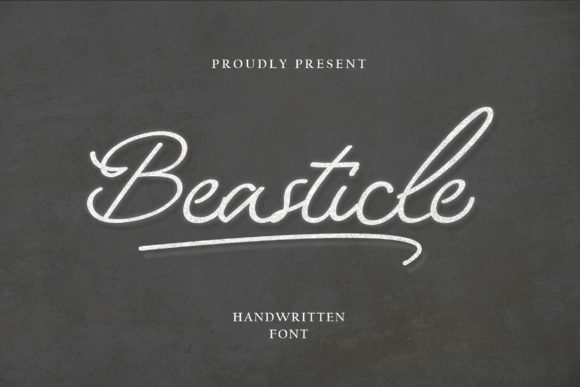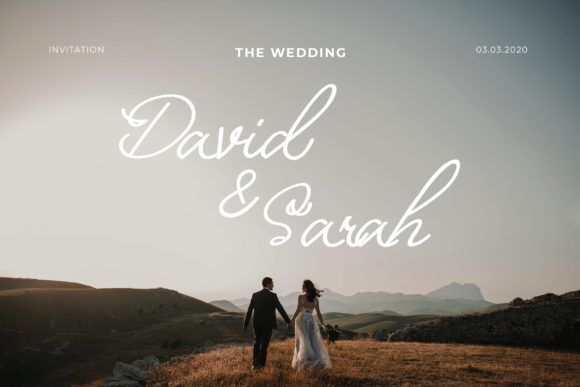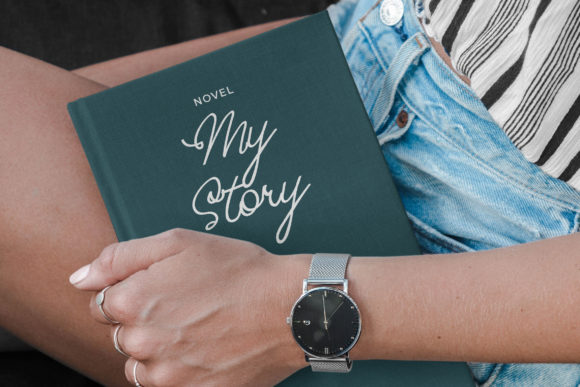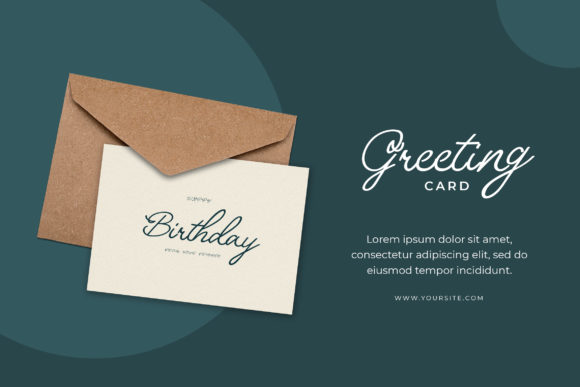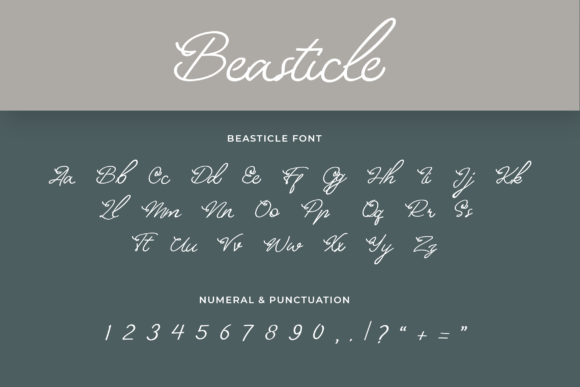
Beasticle Font
About Beasticle Font
Beasticle is a sweet and cursive handwritten font that exudes charm and elegance. With its delicate and flowing letterforms, this font is perfect for adding a romantic and personalized touch to your designs. Whether you’re creating wedding invitations, greeting cards, or any other project that calls for a touch of romance, Beasticle is a great choice.
The dainty and joyful nature of Beasticle brings a sense of whimsy and grace to your text. The cursive style adds a touch of sophistication and lends itself well to projects that require a more intimate and personalized feel. Its romantic qualities make it particularly well-suited for wedding-related designs, where capturing the essence of love and celebration is key.
When using Beasticle, you can experiment with different lettering sizes, spacing, and colors to create a harmonious and visually pleasing composition. The graceful curves and gentle strokes of the font make it pleasant to read and evoke a sense of warmth and tenderness.
Whether you’re creating elegant wedding invitations, heartfelt love notes, or charming greeting cards, Beasticle adds a touch of romance and personality to your designs. Its versatility allows it to be used in various contexts, from formal to whimsical, giving you the freedom to explore different creative possibilities.
Remember to maintain legibility when using Beasticle, especially for longer passages of text. Adjusting the spacing and choosing appropriate sizes can help ensure that your message is easily readable while still capturing the enchanting essence of the font.
In summary, Beasticle is a sweet and cursive handwritten font that brings a touch of romance and personalization to your designs. Its delicate and joyful nature makes it ideal for wedding invitations, cards, and other projects that require a romantic and intimate feel. Explore the beauty of Beasticle and let it add a touch of elegance to your next design endeavor.